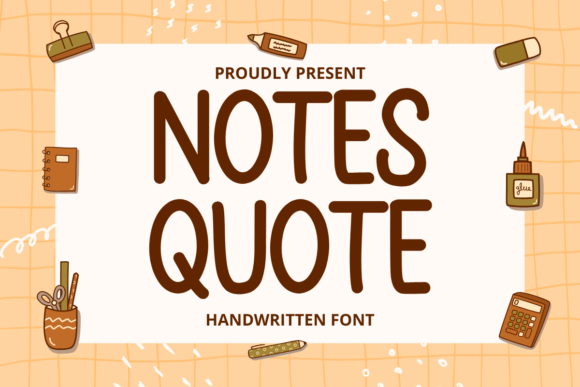
Introducing Notes Quote Font, the ultimate choice for those seeking the best fonts for funny T-shirts! Created by SiapGraph, this font exudes a sweet and friendly vibe, adding a touch of whimsy to any design. With its natural and unique style, Notes Quote Font is bound to captivate your imagination and elevate your creativity to new heights.
When it comes to designing eye-catching collections, Notes Quote Font truly shines. Its display font family ensures that every letter stands out, making it ideal for large-scale designs. Whether you're creating a hilarious T-shirt slogan or a quirky graphic, this font will bring your vision to life and leave a lasting impression.
With Notes Quote Font, the possibilities are endless. Unleash your creativity and let this font become your ultimate artistic companion. Whether you're a seasoned designer or just starting out, this font guarantees stunning results. Its versatility allows it to adapt to any concept, ensuring that each design is unique and captivating.
Infused with a delightful charm, Notes Quote Font is more than just a typography choice – it's a statement. Its playful and whimsical nature adds a touch of personality to your designs, leaving a lasting impact on anyone who lays eyes on them. Stand out from the crowd and let your creations speak volumes with this captivating font.
But don't just take our word for it. Join the countless designers who have fallen in love with Notes Quote Font and witness the magic it brings to their projects. Its distinct style has already won the hearts of many, making it a popular choice among design enthusiasts worldwide.
So, why wait? Take your designs to the next level and let Notes Quote Font be the secret ingredient that sets them apart. Inject a dose of humor, lightheartedness, and creativity into your next project, and watch as it comes to life with this extraordinary font.
Remember, when it comes to choosing the best fonts for funny T-shirts, Notes Quote Font is the ultimate choice. Its natural charm, versatility, and unique style will make your designs stand out from the rest. Let your imagination run wild and create something truly remarkable with this captivating font.